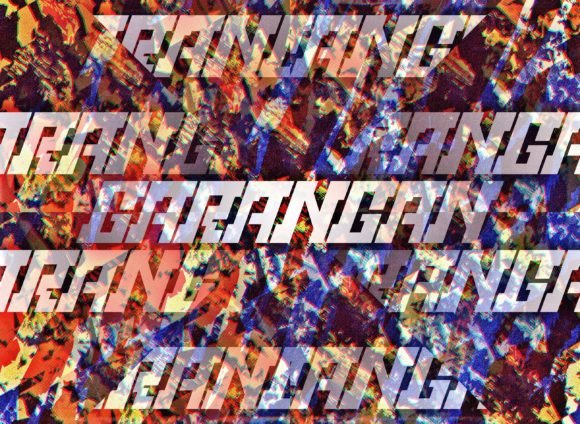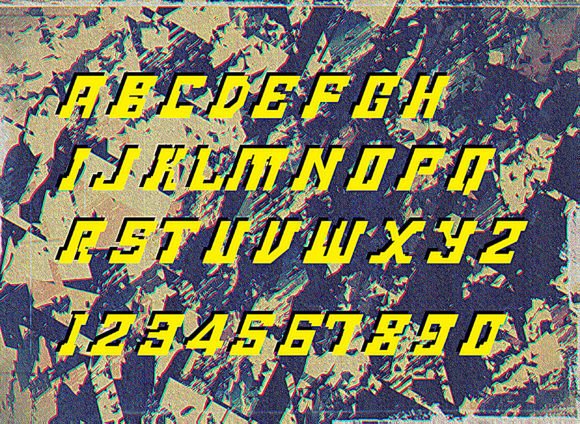
Introducing Garangan Font: The Ultimate Choice for Bold and Daring Typography
In the world of typography, fonts play a crucial role in conveying the tone and personality of a design. For designers and crafters looking for a bold and daring statement, Garangan Font is an excellent choice. This cool and unique all-caps display font is designed to make a lasting impression, with its strong and masculine look making it suitable for a wide range of projects.
What Makes Garangan Font Stand Out?
Garangan Font boasts a distinctive style that sets it apart from other fonts. Its all-caps design gives it a commanding presence, making it perfect for headlines, titles, and any other application where you want to grab attention. The font’s strong and masculine look is achieved through its bold lines and rugged texture, giving it an edgy feel that’s sure to appeal to designers and crafters who want to add a touch of boldness to their work.
Key Features of Garangan Font
- All-caps design: Garangan Font is designed specifically for display purposes, making it perfect for headlines, titles, and other applications where you want to make a statement.
- Strong and masculine look: The font’s bold lines and rugged texture give it a distinctive, masculine appearance that’s sure to grab attention.
- Unique and cool style: Garangan Font has a one-of-a-kind design that’s sure to set your work apart from the crowd.
- Versatile: Despite its bold and daring nature, Garangan Font is surprisingly versatile, making it suitable for a wide range of projects, from posters and flyers to logos and branding materials.
How to Use Garangan Font in Your Designs
Garangan Font is an incredibly versatile font that can be used in a variety of design applications. Here are a few ideas to get you started:
- Posters and flyers: Use Garangan Font to create eye-catching headlines and titles that are sure to grab attention.
- Logos and branding materials: The font’s strong and masculine look makes it perfect for logos and branding materials that need to convey a sense of boldness and confidence.
- Social media graphics: Add a touch of boldness to your social media graphics with Garangan Font, which is sure to help your content stand out in crowded feeds.
- Packaging design: Use Garangan Font to add a bold and daring touch to your packaging design, which can help your product stand out on store shelves.
Tips for Getting the Most Out of Garangan Font
To get the most out of Garangan Font, here are a few tips to keep in mind:
- Use it sparingly: While Garangan Font is bold and daring, it can also be overwhelming if used too much. Use it sparingly to create emphasis and add visual interest to your designs.
- Experiment with colors: Garangan Font looks great in a variety of colors, so don’t be afraid to experiment and find the perfect hue to match your brand or design.
- Pair it with other fonts: Garangan Font can be paired with a variety of other fonts to create a unique and visually appealing combination.
Garangan Font is a cool and unique all-caps display font that’s perfect for designers and crafters looking to add a bold and daring touch to their work. With its strong and masculine look, versatility, and ease of use, Garangan Font is an excellent choice for a wide range of design applications. Whether you’re creating posters, logos, social media graphics, or packaging design, Garangan Font is sure to help you make a lasting impression.